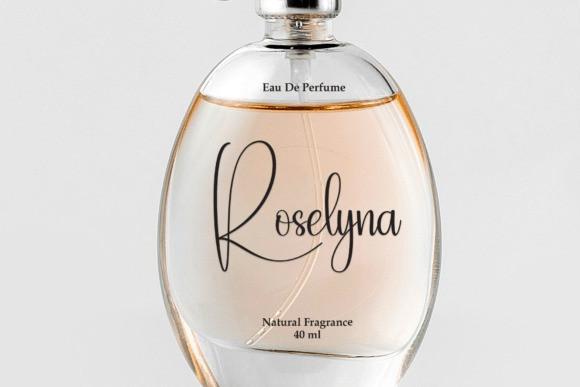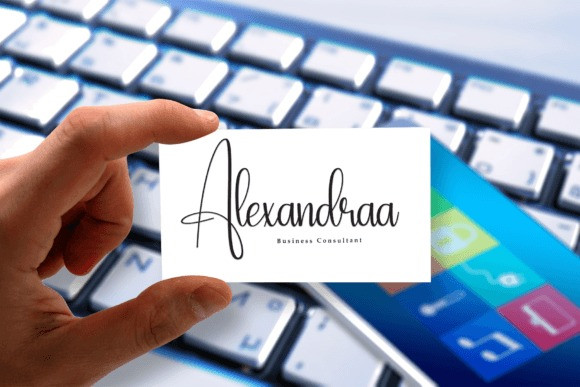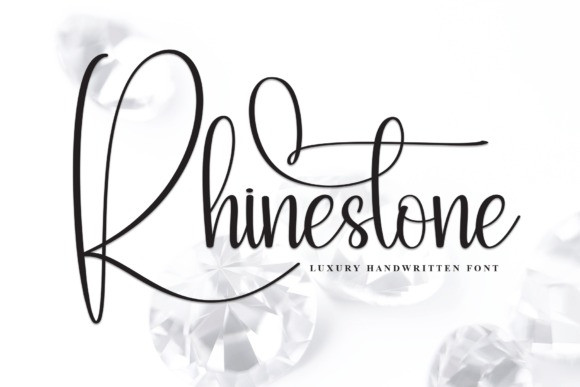
Rhinestone Handwritten Font
Rhinestone Handwritten Font is a gorgeous and bold handwritten font, crafted to give your headlines and logotype projects a stylish touch. This font reads as strong, confident, and dynamic and can add tons of nostalgic character to your designs